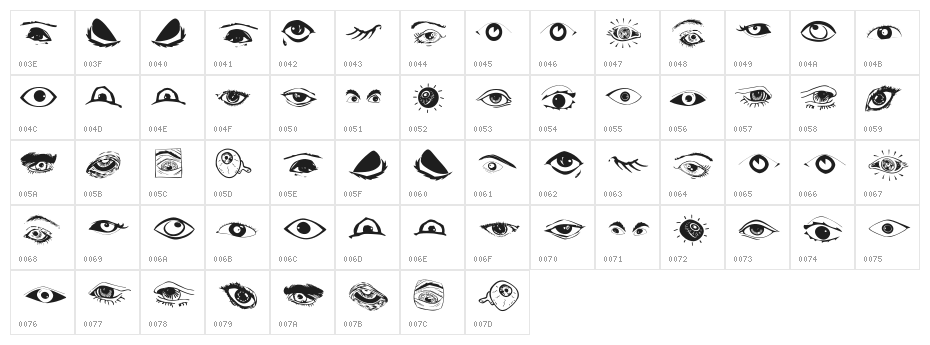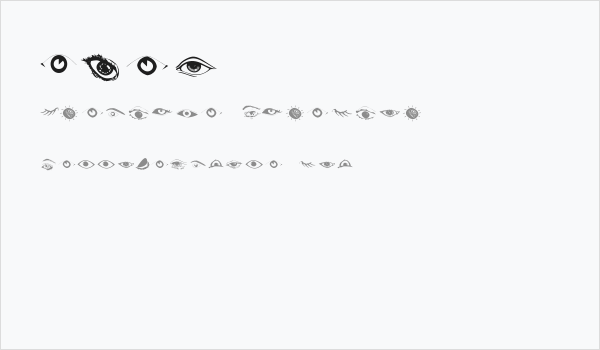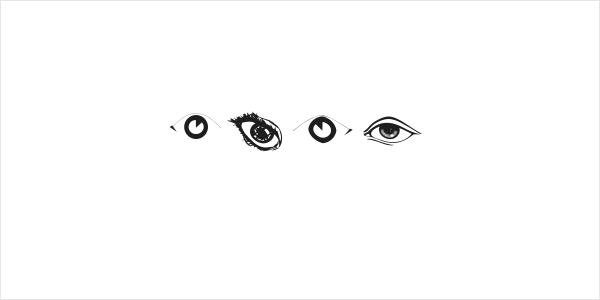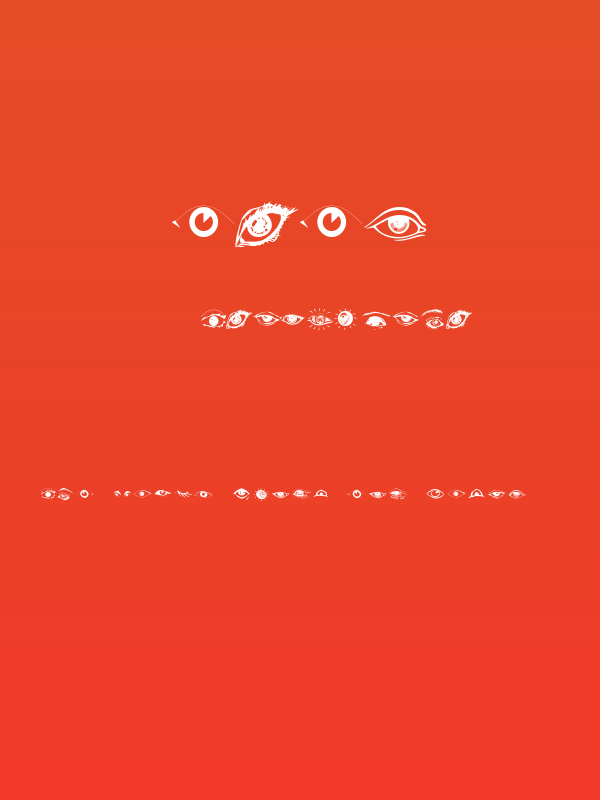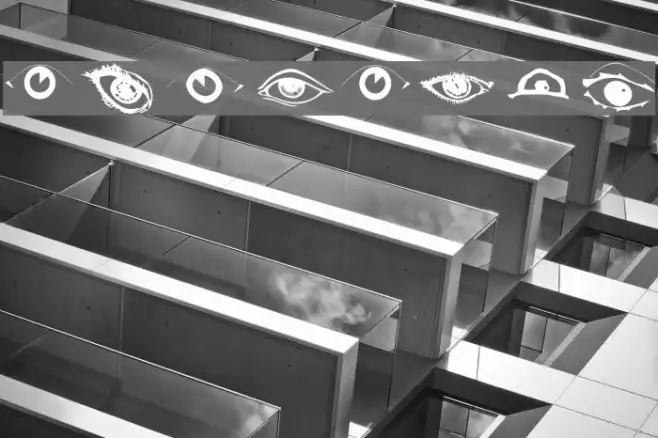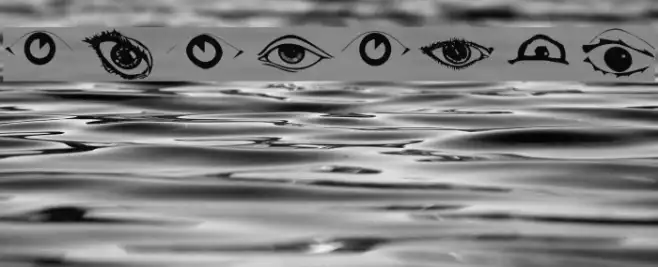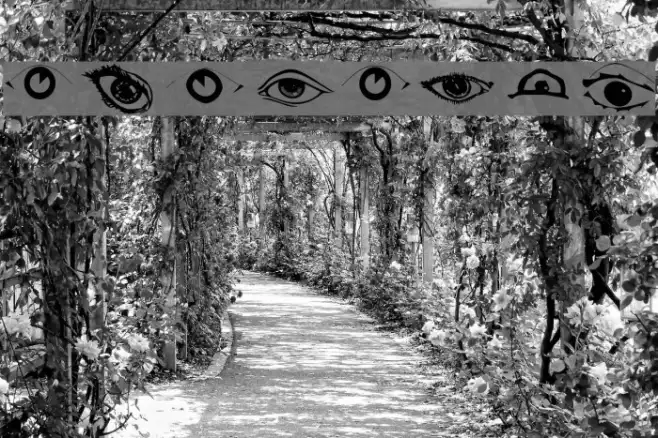
Eyes Font
Eyes Description
A decorative collection of hand-drawn eye illustrations, each with unique detailing and expressive line work, varying from simple outlines to more intricate, shaded designs. The set includes a wide range of stylized eyes, some with lashes, brows, or radiating lines, and others with bold graphic elements.
| Overall Style | Decorative, Hand-drawn, Artistic |
| Use Case | Logos, Posters, Illustrations, Decorative accents |
| Proposed Projects | Branding, poster design, album covers, editorial illustrations, tattoo flash, mystical or esoteric themed projects. |